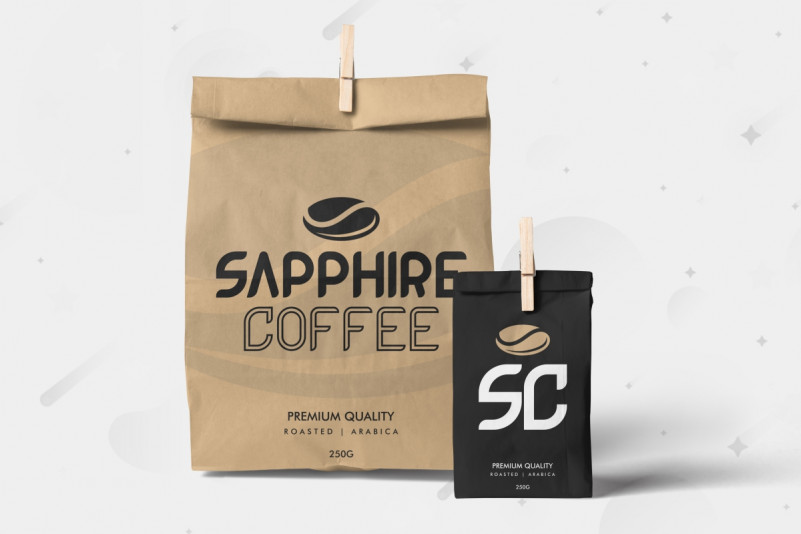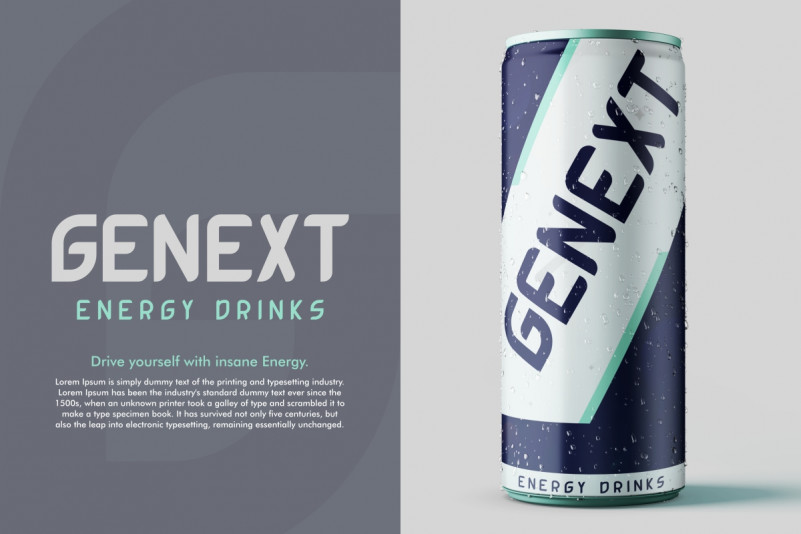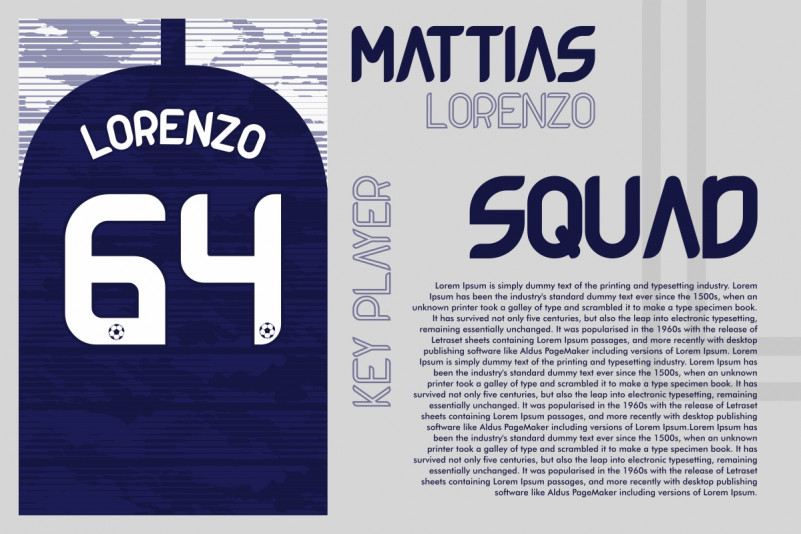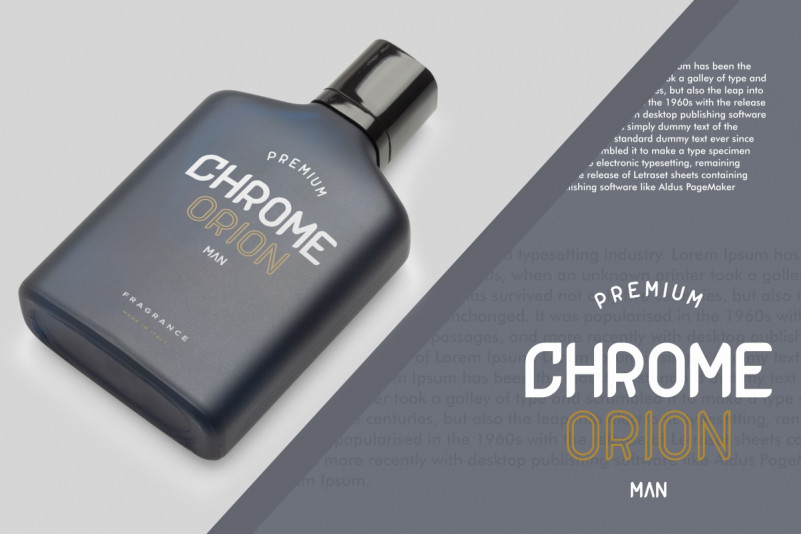
Inspace Font
Inspace Display Font
This is a futuristic modern display font with unique style. The font was inspired from aerospace technology, astronaut, speed, computer glyphs and startup poster. It has a unique style that will bring the special effect to the design. It will works for games, technology, events, spaceship and any other things. Inspace includes full set of Uppercase and Lowercase Basic Characters, Numerals and Punctuation. You can also combine two or more styles on the text like we did on the cover, so you will great even more unique and special font. The font is perfect for many projects, headlines, logos, poster, tittle, products, etc